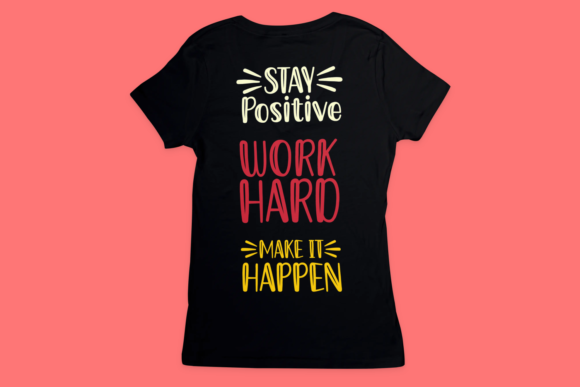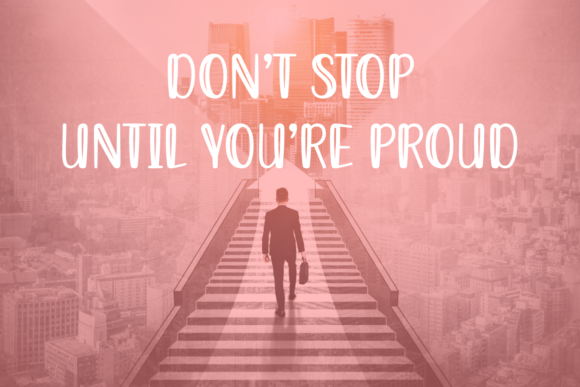
Introduction to Look Forward Font
Do you remember the moment when a simple, yet bold font choice completely transformed your design project? For many designers, it’s a feeling of pure joy and satisfaction. That’s exactly what you can expect with the Look Forward Font – a cute and quirky display font that will add an incredibly joyful touch to your designs.
Whether you’re working on a creative project or just need a design resource to elevate your work, Look Forward Font is a valuable addition to your toolkit. With its high-quality design and transparent background, you can easily integrate it into any project, from social media graphics to posters and more. And the best part? This beautiful display font is available for free download, making it an accessible choice for designers of all levels.
So why settle for an ordinary font when you can look forward to making a statement with this charming display font? Let’s dive into the world of Look Forward Font and discover how it can take your designs to the next level.
Key Features of Look Forward Font
- High-quality design resource for creative projects, ideal for modern and professional applications.
- Transparent background option available for seamless integration with any design or background.
- Includes a range of font sizes, from 12 to 72 points, to suit different design requirements.
- Features high-resolution designs, with a minimum resolution of 300 DPI, ensuring crisp and clear text display.
- Designed to be highly versatile, suitable for a wide range of creative projects, from logos to brochures and beyond.
Honest Review: Look Forward Font
I recently stumbled upon the Look Forward Font while searching for a high-quality design resource for a creative project. I was immediately drawn to its clean and modern aesthetic, making it perfect for any design task.
One of the things that works well with this font is its versatility. It’s available in a range of weights and styles, making it easy to use in various design contexts. ✨ The font also features a transparent background, which allows for seamless integration with any background image or color.
- Available in various weights and styles
However, I do have a few limitations to note. ⚠️ The font may not be suitable for very small text sizes, as it can become difficult to read. Additionally, the font’s design may not be ideal for very formal or traditional designs, as it has a more modern feel.
Overall, I’m impressed with the Look Forward Font and would highly recommend it to designers looking for a high-quality, free download. It’s a great addition to any design arsenal and is perfect for a wide range of creative projects.
Look Forward Font
The Look Forward Font is a high-quality, free download design resource ideal for creative projects. This versatile font features a transparent background, making it perfect for overlays and text effects.
Tips for Getting the Most Out of Look Forward Font
To get the most out of the Look Forward Font, experiment with different font sizes, colors, and effects. Use the font in combination with other design elements to create visually appealing and effective designs.
The Look Forward Font is ideal for a variety of creative projects, including social media graphics, blog posts, and marketing materials. Its transparent background makes it perfect for overlays and text effects, adding a professional touch to any design.